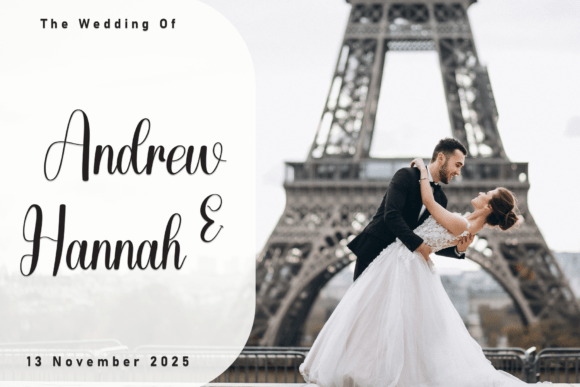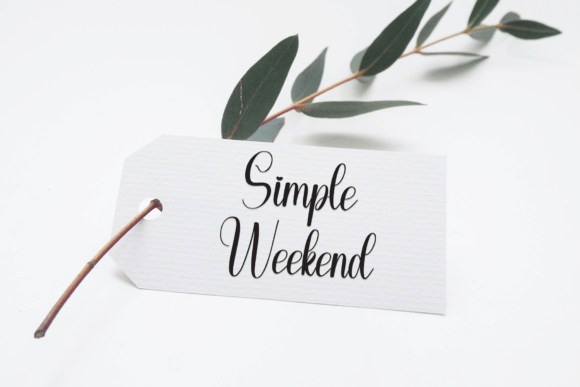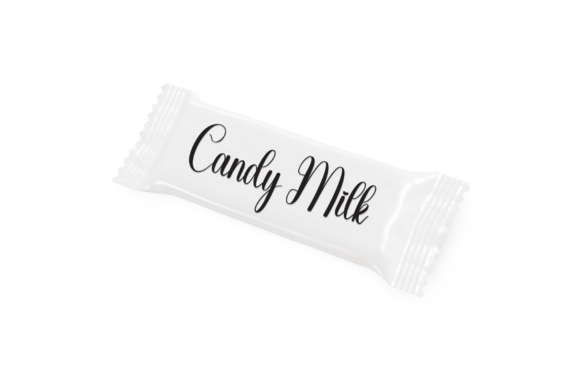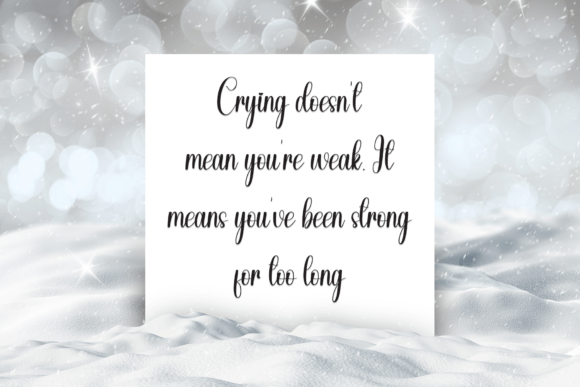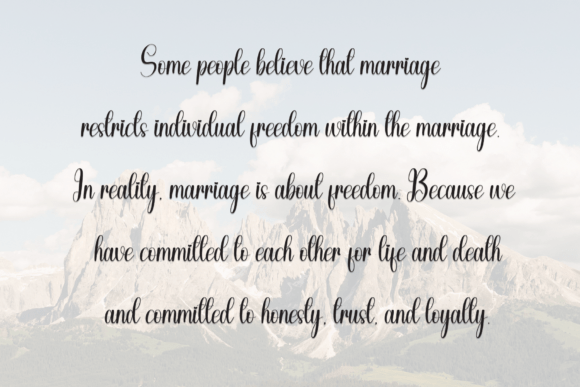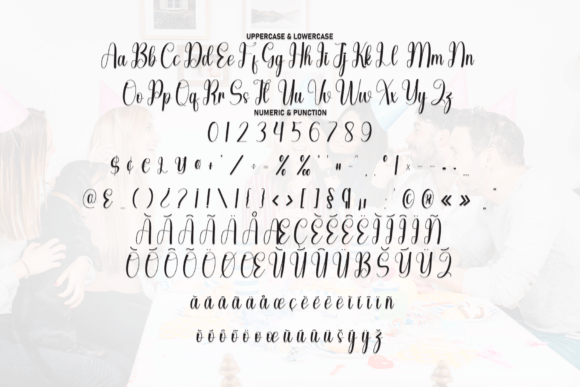
The Perfect Font to Celebrate Life’s Special Moments
Have you ever stared at a blank page, waiting for inspiration to strike? Maybe you’re a designer, tasked with creating the perfect invitation for a friend’s birthday party. You’ve scrolled through countless fonts, searching for that one special something that captures the essence of the occasion. That’s where the Birthday Font comes in – a stylish script font that exudes elegance and contemporary charm.
With its fluid curves and carefully crafted letterforms, this font is perfect for adding a refined and sophisticated touch to any design. Whether you’re working on logos, invitations, packaging, or social media graphics, the Birthday Font delivers both versatility and visual appeal. As a designer, you know how valuable it is to have a font that can elevate your work and make it stand out from the crowd. The Birthday Font is a valuable addition to any design toolkit.
Birthday Font Key Features
- Unique Characteristics: Features a celebratory and playful design, perfect for birthday-themed graphics and designs
Birthday Font Review
As a designer, I was excited to try out the Birthday Font. Here’s my honest review.
- Unique and playful design: The font’s whimsical style makes it perfect for birthday invitations, party decorations, and other celebratory materials.
- Lack of versatility: While the font is great for birthday-related materials, it may not be suitable for other types of projects or designs.
- Not ideal for body text: The font’s playful style may make it difficult to read in large blocks of text, which can be a limitation for longer documents or articles.
The Birthday Font is a fun and creative tool that can add a personal touch to birthday-related designs. While it may have some limitations, it’s a great option for those looking to create unique and festive materials. However, it’s essential to keep in mind its limitations and use it accordingly.
Tips for Getting the Most Out of the Birthday Font
Use the Birthday Font for birthday invitations, party decorations, and other celebratory materials.
Experiment with different font sizes and colors to create a unique and eye-catching design.
Combine the Birthday Font with other festive graphics and elements to create a cohesive and engaging design.
Birthday Font is commonly used for:
Birthday invitations and party invitations
Party decorations and banners
Gift tags and wrapping paper
Cake toppers and other edible decorations